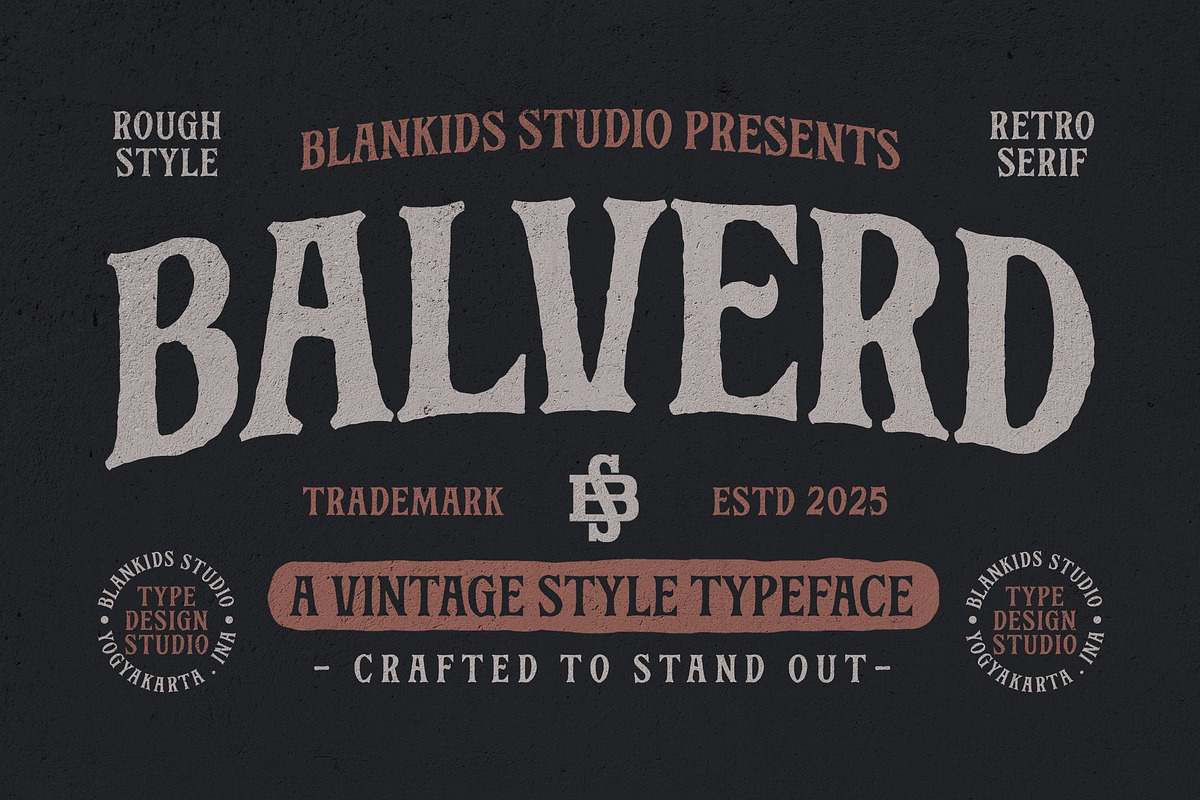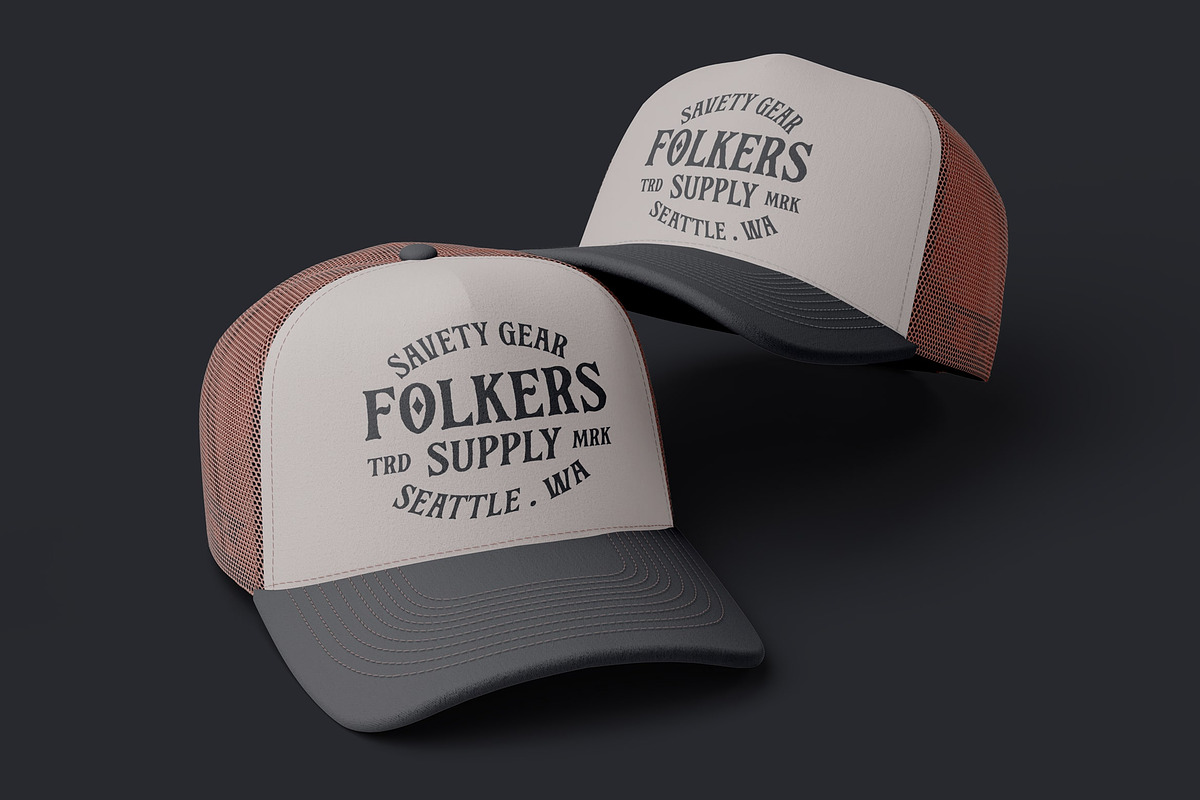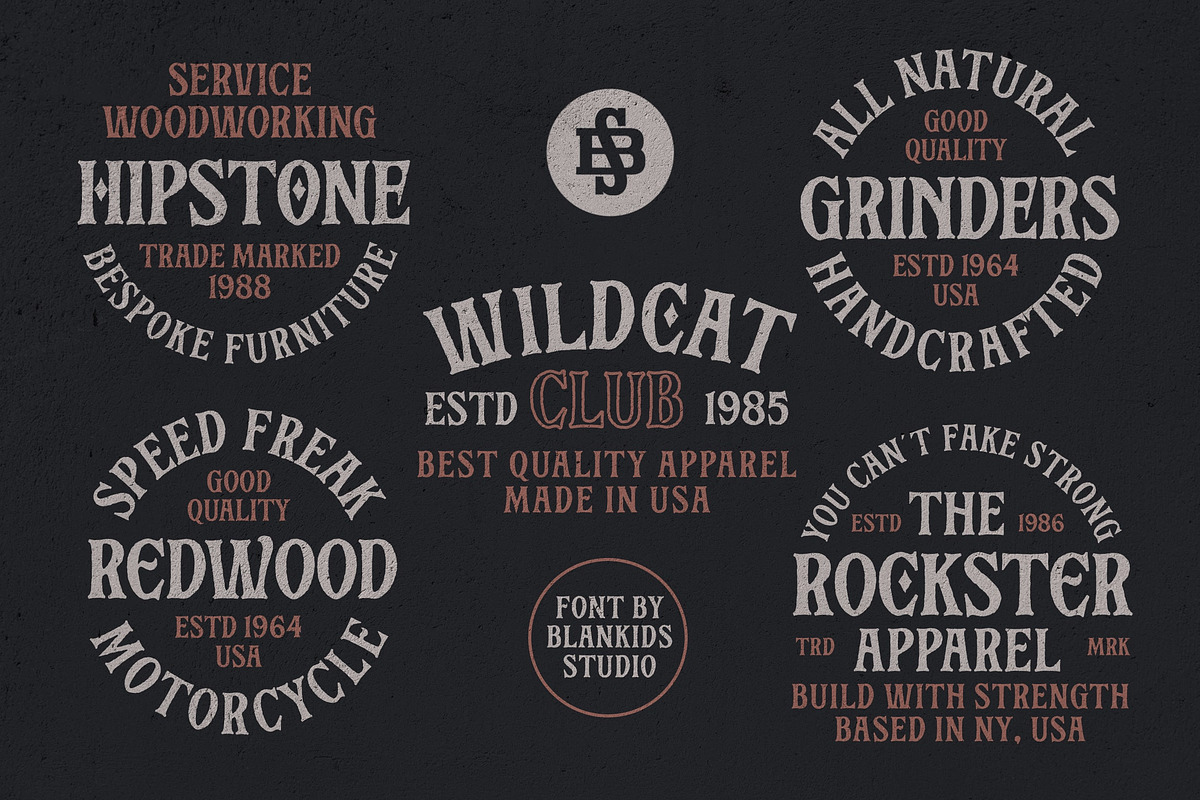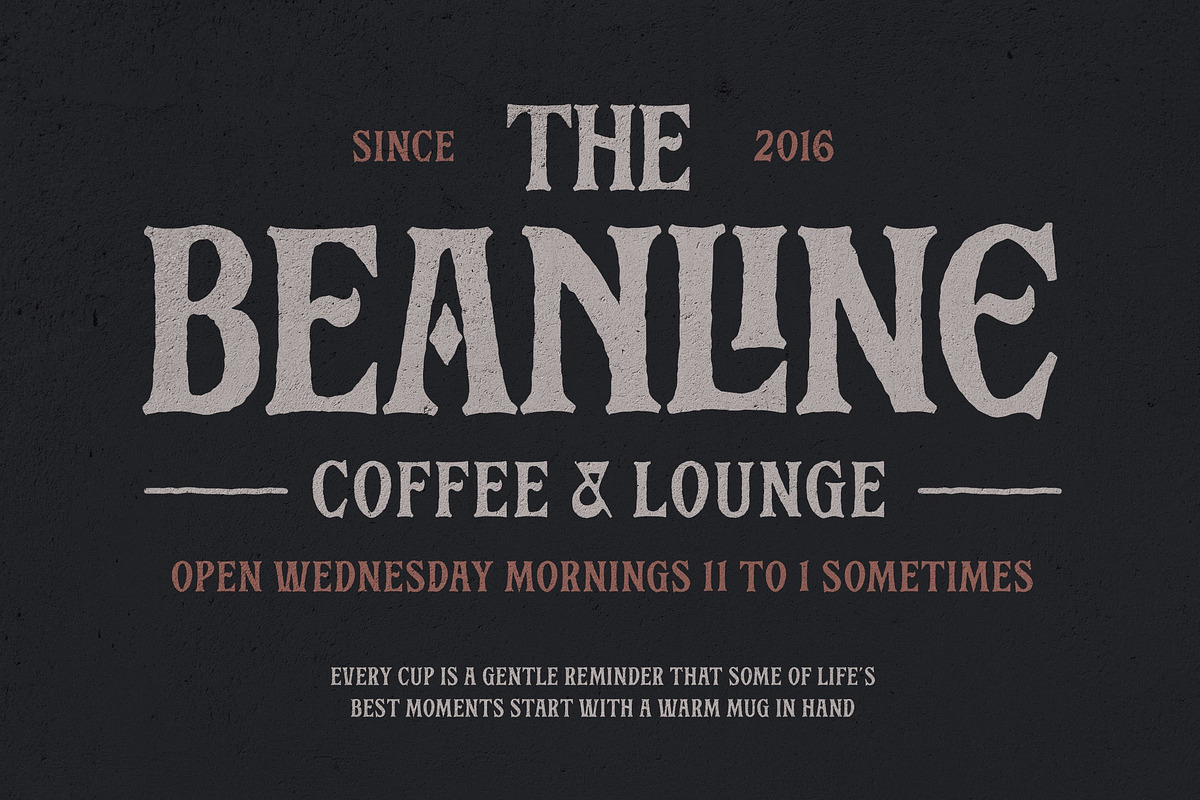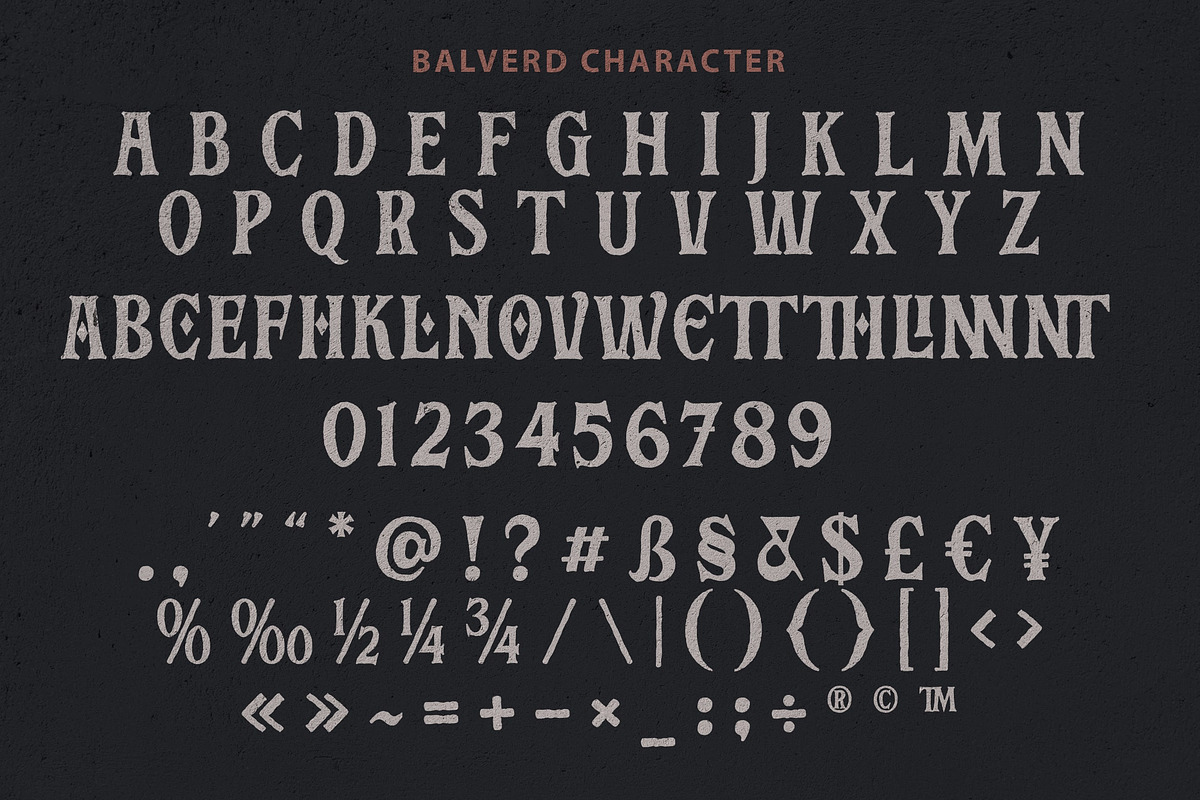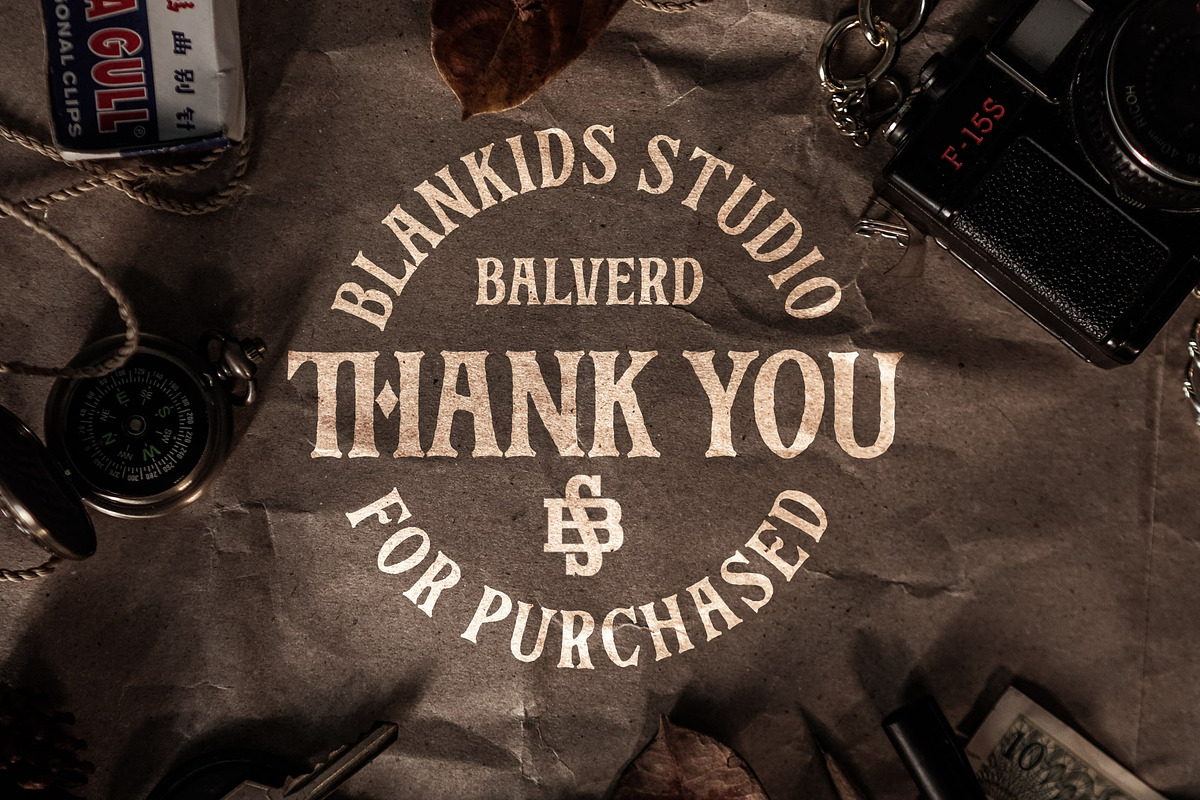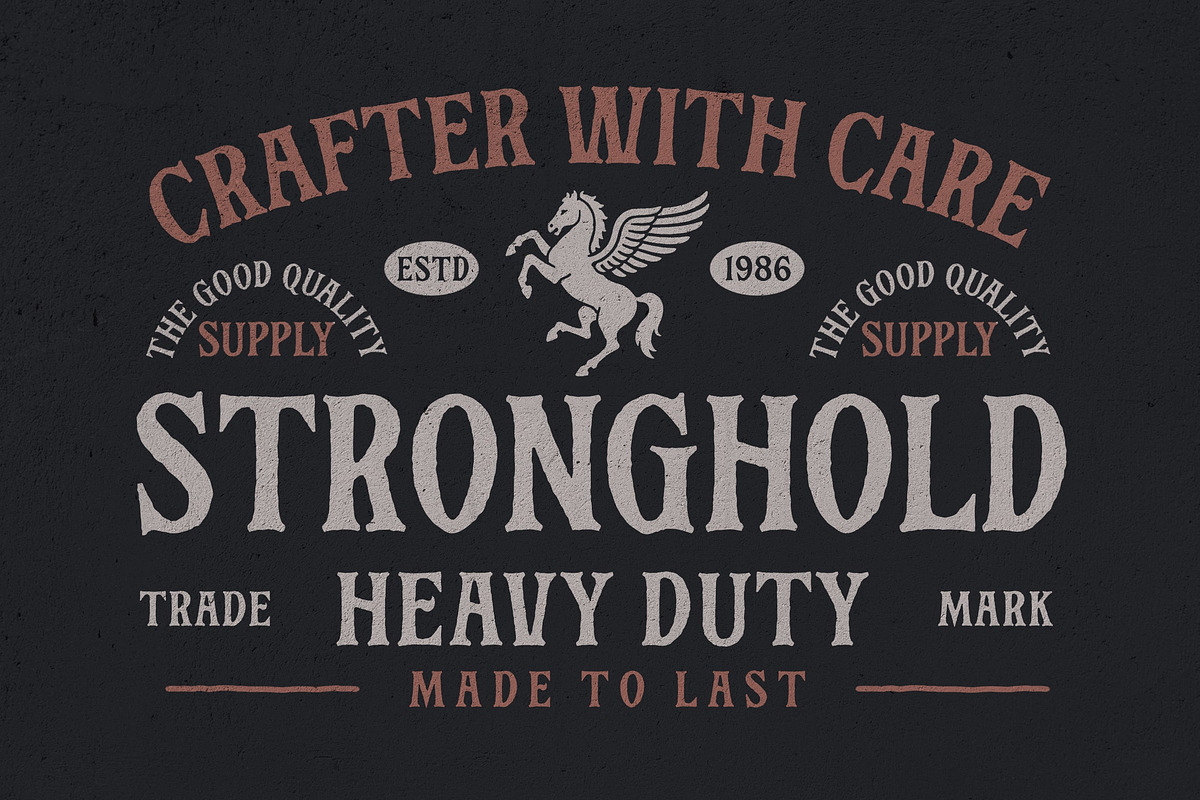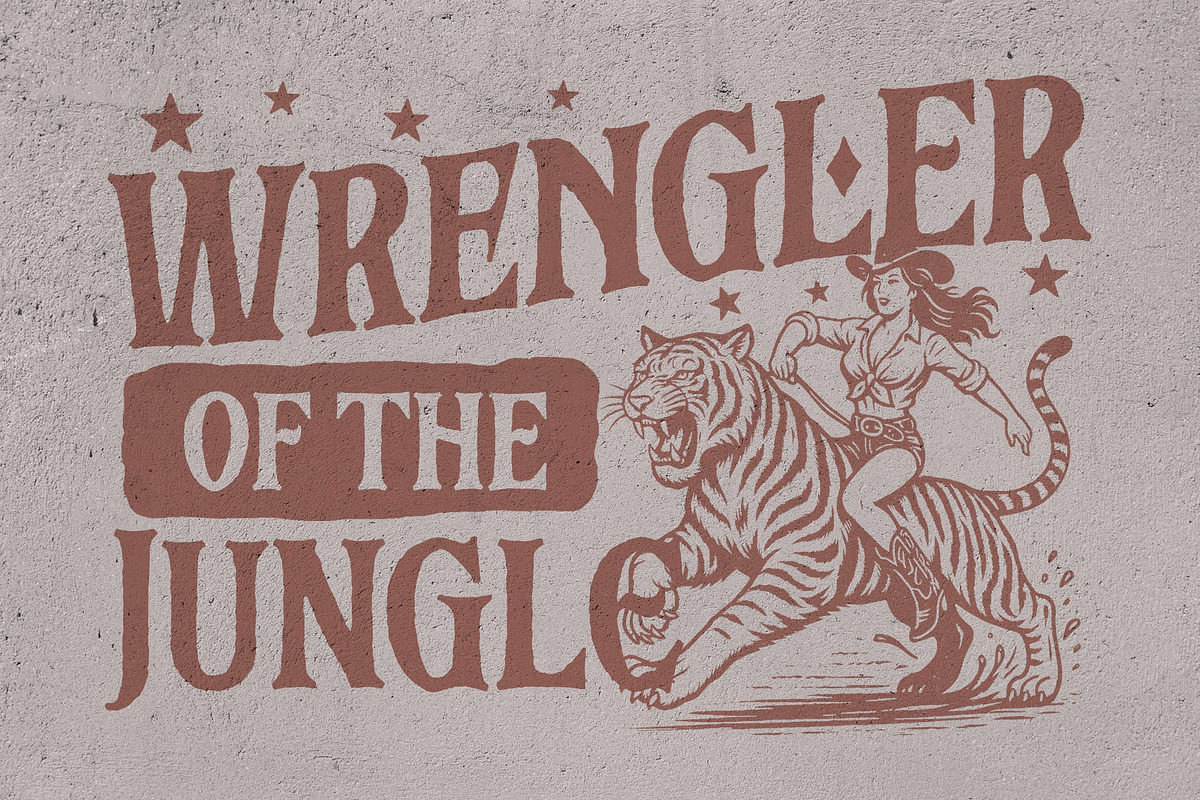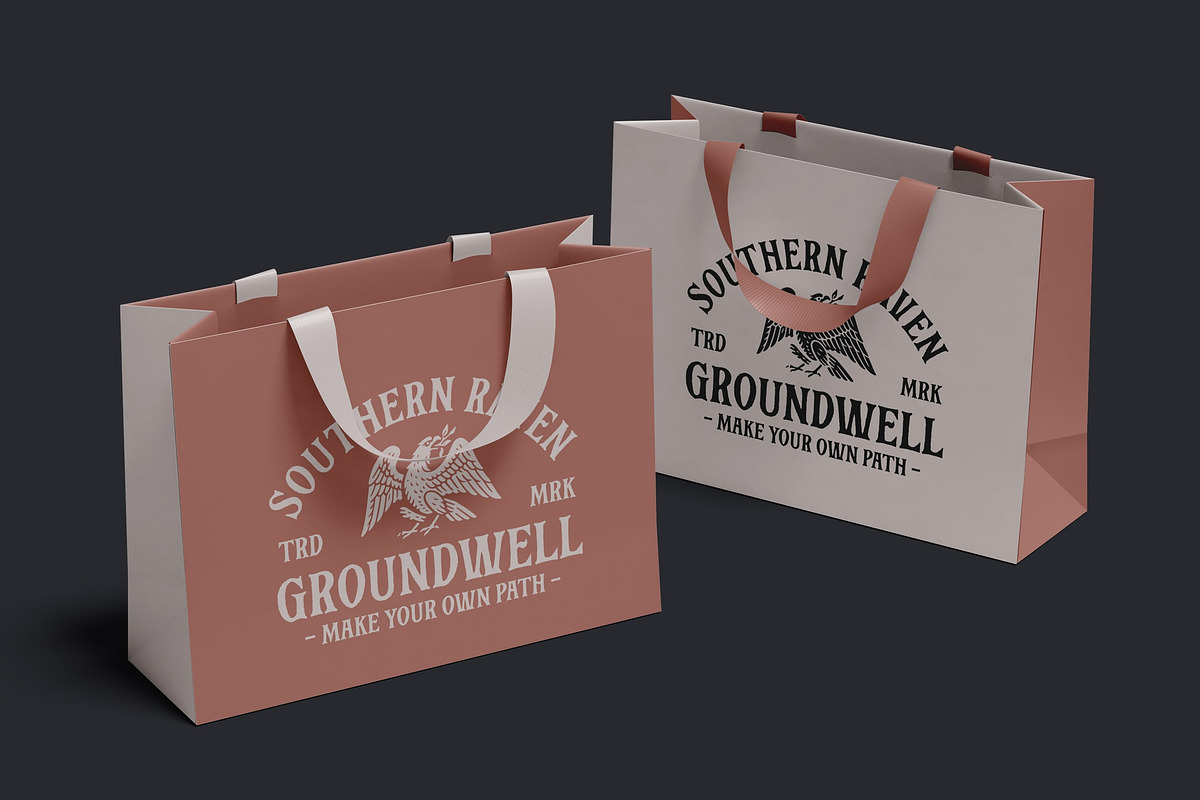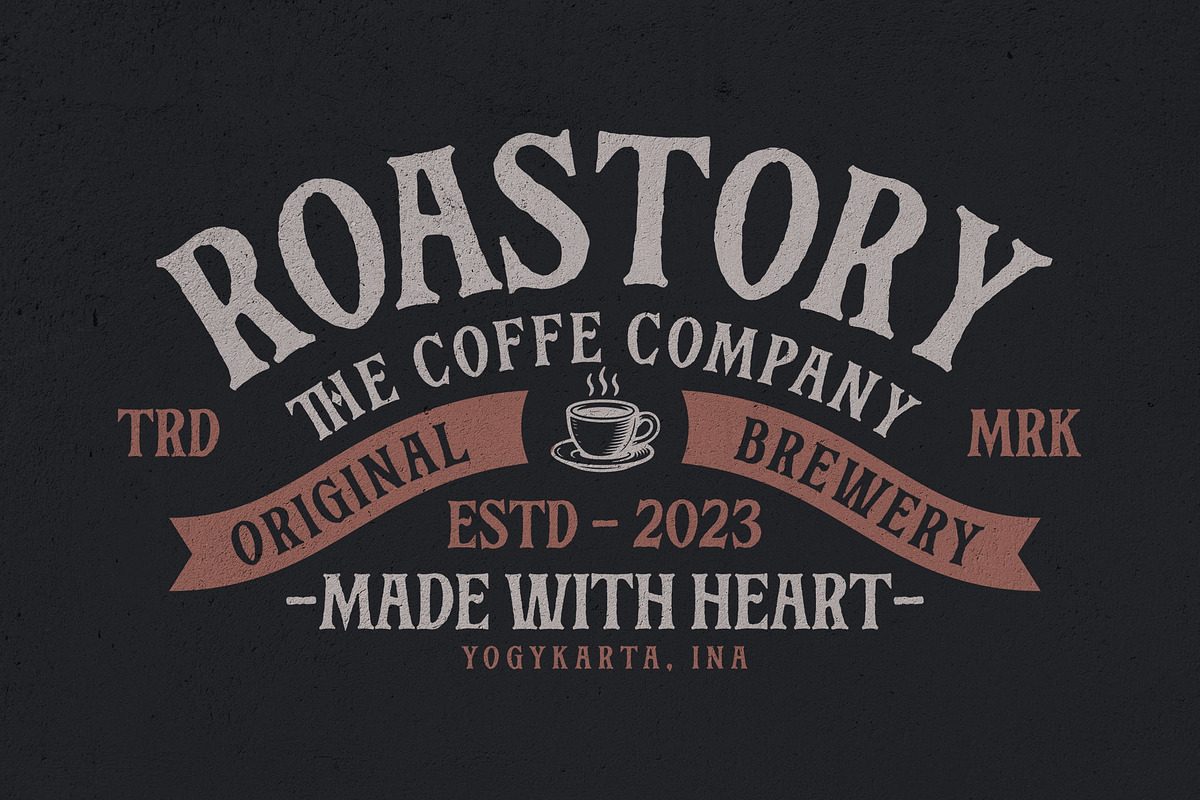
Balverd a Vintage Style Typeface
Hello, awesome people! This time, we have a new font called Balverd a vintage style typeface by Blankids Studio.
Balverd a vintage style typeface is made for any professional project branding, such as logotype, watermarks, poster, branding, promotions, product packaging, etc. Every letter has a vintage style design. This font comes in Otf. and Ttf. files.
Balverd font includes a full set of vintage uppercase and lowercase letters, numerals and punctuation. This font has a vintage style. See the previews above to get some inspiration on how to use them. Happy designing!